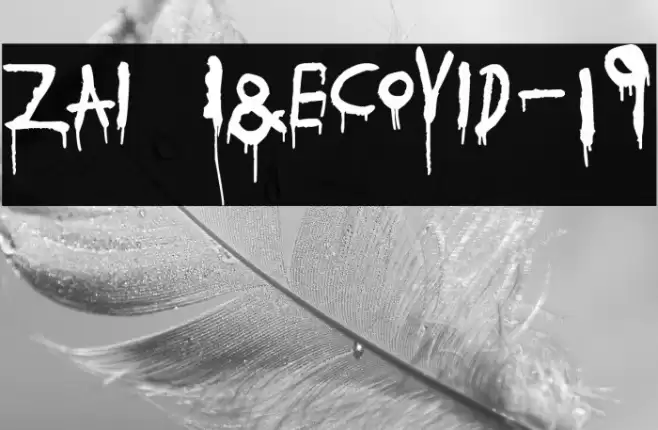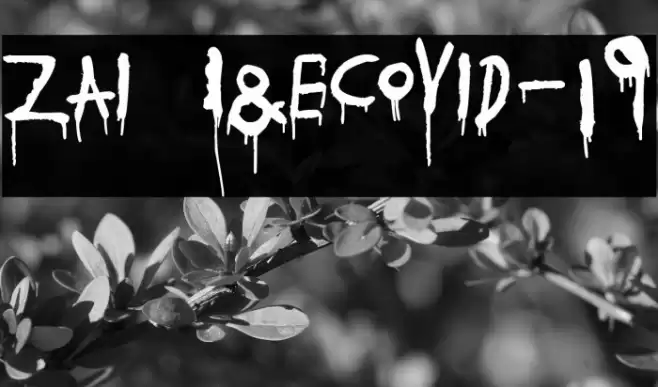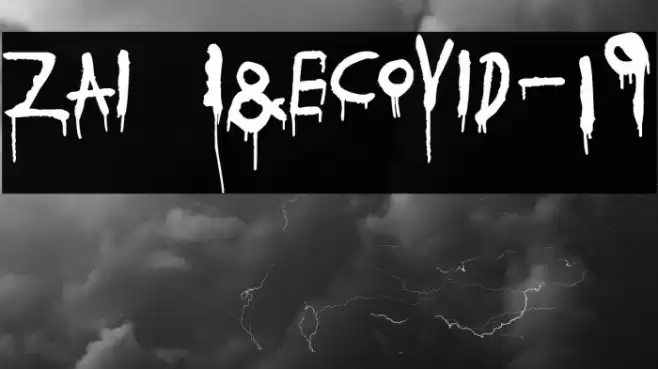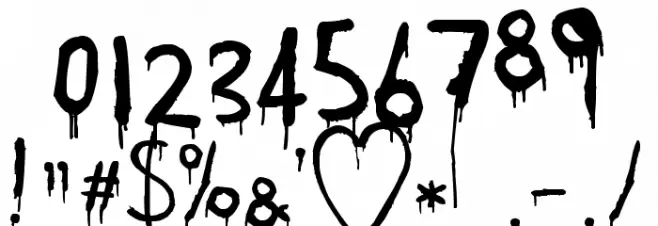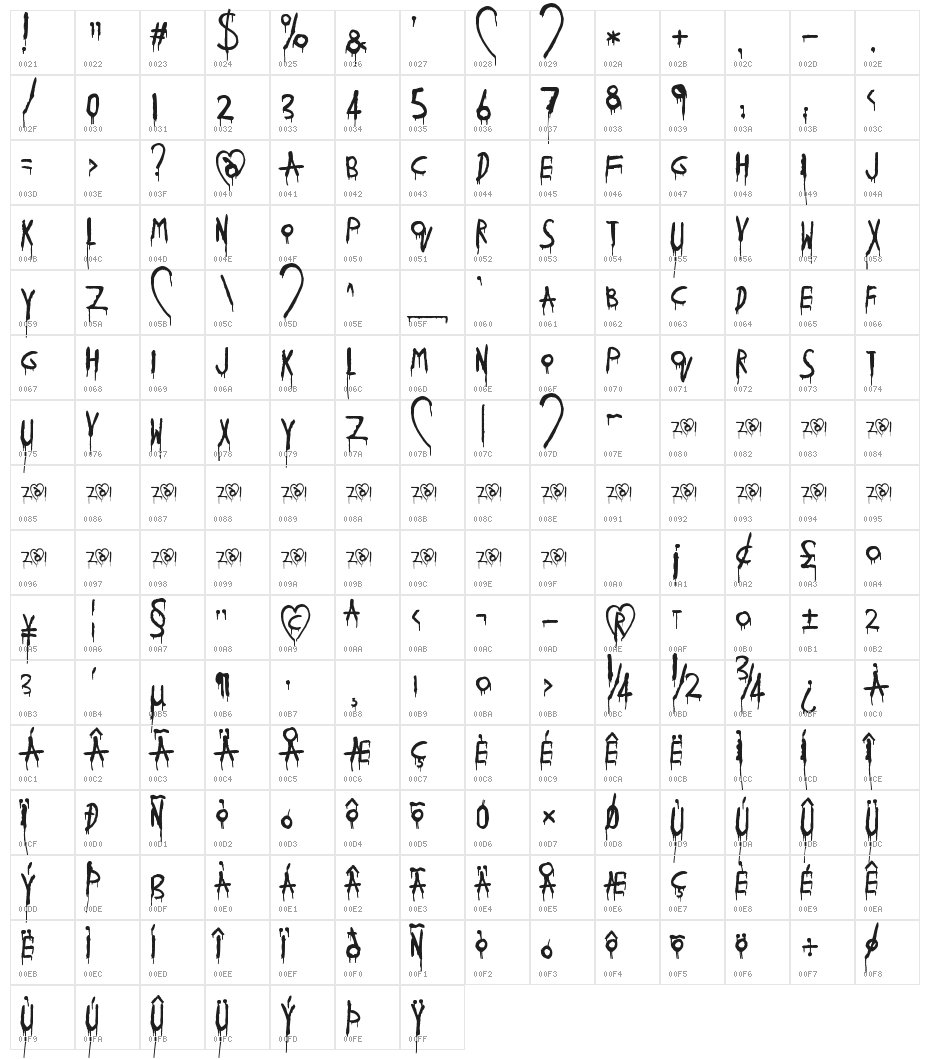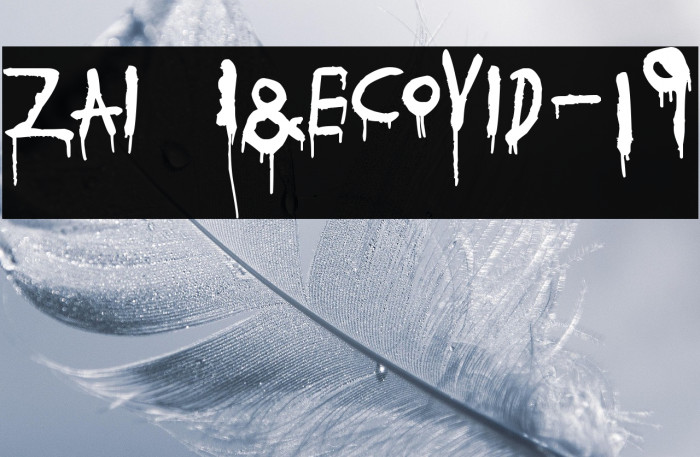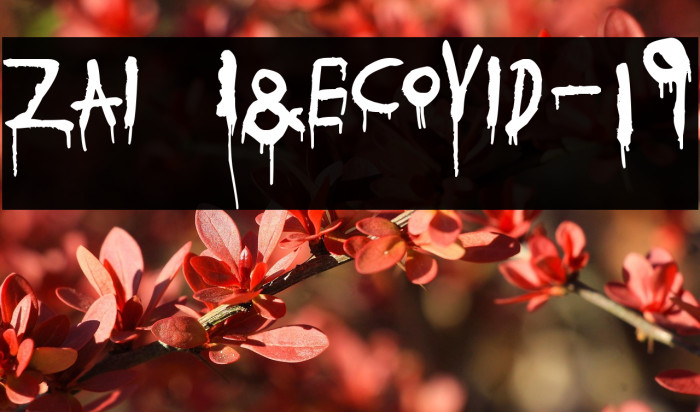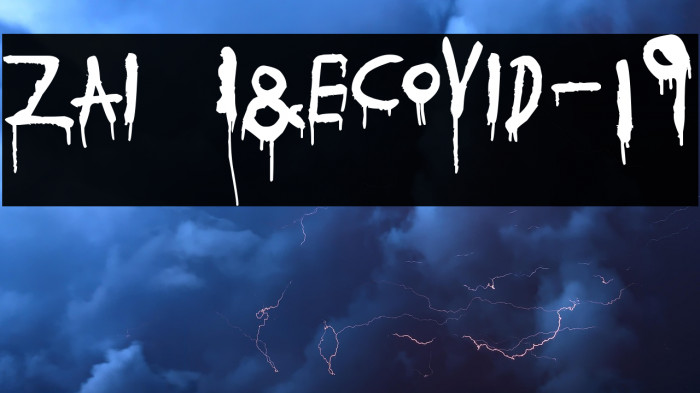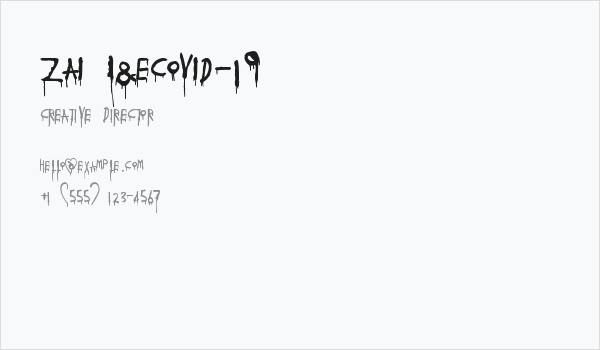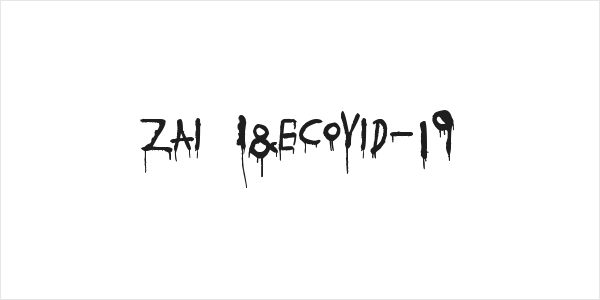
zai I&eCovid-19 Font
zai I&eCovid-19 Description
This font features a unique and edgy design with a dripping effect that gives it a grunge or horror-like appearance. The characters are bold and have an uneven, hand-drawn quality, which adds to its raw and expressive style. The uppercase and lowercase letters maintain a consistent theme, with each character appearing as if it is melting or dripping downwards. The numbers and special characters follow the same aesthetic, making the font cohesive across all elements. This style is particularly striking and would stand out in any design that aims to convey a sense of chaos, rebellion, or artistic flair.
A bold, dripping font with a grunge and horror-inspired aesthetic from Regular fonts.
- Font: zai I&eCovid-19
- Proposed Projects: Ideal for horror movie posters, Halloween event flyers, edgy album covers, or any project requiring a dramatic and rebellious look.